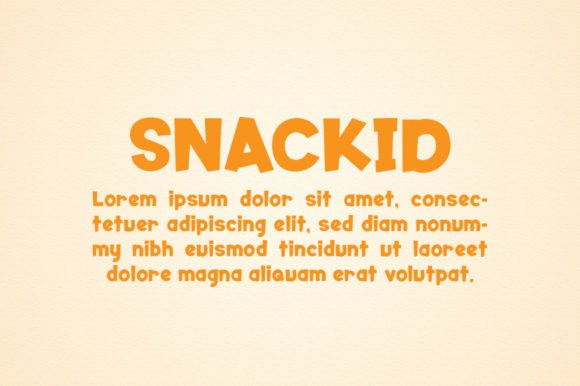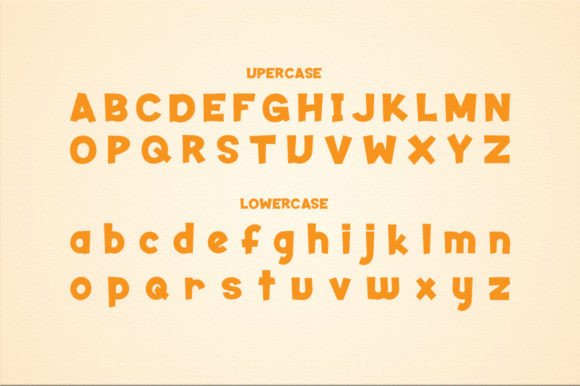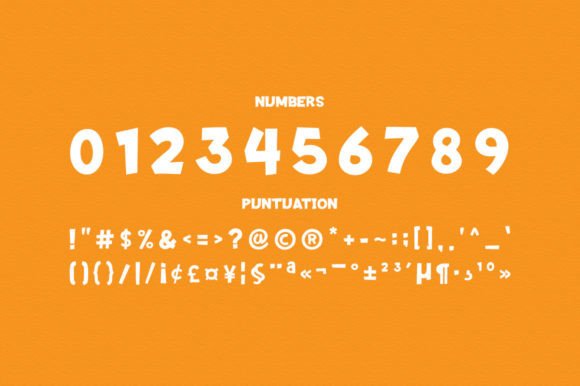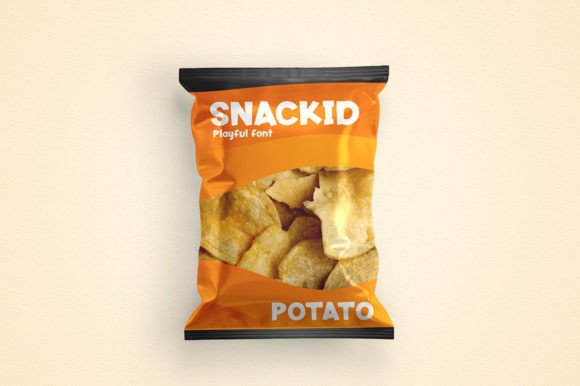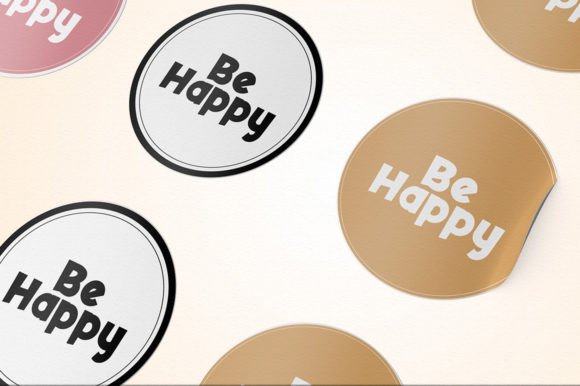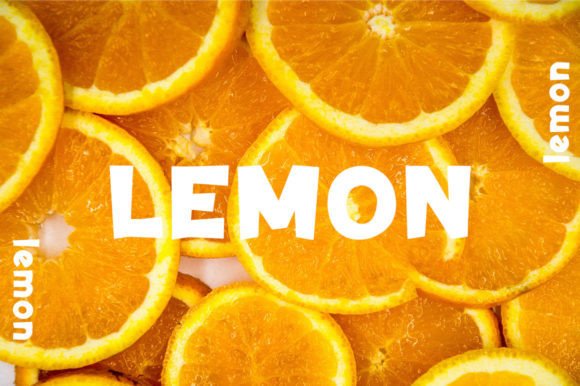
Introduction to Snackid Font
As a designer, there’s nothing quite like the thrill of bringing a creative project to life. You’re brainstorming ideas, experimenting with colors, and testing out typography – and that’s when it hits you: the perfect font to make your design truly pop. For many of us, that ‘aha’ moment comes when we stumble upon a unique display font that perfectly captures the essence of our vision. And for those who are about to embark on a food-related design journey, we’re excited to introduce you to the perfect companion: Snackid Font.
Snackid Font is more than just a design resource – it’s a game-changer. Its high-quality design makes it perfect for a wide range of creative projects, from food-related products to children’s activities and book titles. And the best part? You can download it for free, complete with a transparent background that allows for seamless integration into your design.
Key Features of Snackid Font
- Unique, bold, and playful font style perfect for snacking and food-related branding
- Comes with a comprehensive character set, including uppercase and lowercase letters, numbers, and punctuation marks
Honest Review: Snackid Font
I recently stumbled upon the Snackid Font, and I’m excited to share my honest thoughts on this design resource.
First, let’s talk about what works well. ✨ The Snackid Font is a high-quality, modern sans-serif font that’s perfect for any creative project. Its clean design and friendly feel make it an excellent choice for digital products, logos, and even print materials.
One of the standout features of the Snackid Font is its versatility. ✨ It comes in a range of weights, from light to bold, allowing you to customize the look of your project to suit your needs. Plus, it’s available for free download, making it an excellent option for designers on a budget.
- High-quality, modern sans-serif design
- Range of weights (light to bold)
However, there are a few limitations to consider. ⚠️ The Snackid Font is a relatively new design resource, and it may not be as extensive as some other fonts on the market. Additionally, it’s not suitable for use in situations where a more traditional, serif font is required.
Overall, I’m impressed with the Snackid Font and would recommend it to designers working on a creative project. Its modern design, versatility, and free download make it a valuable addition to any design resource library.
Introduction to Snackid Font
Snackid Font is a high-quality design resource perfect for creative projects. This free download offers a unique and eye-catching style that can elevate any design. With its transparent background, Snackid Font is easy to customize and integrate into various design tools.
Tips for Getting the Most Out of Snackid Font
To get the most out of Snackid Font, try experimenting with different font sizes, colors, and combinations. This font is perfect for creating eye-catching headlines, titles, and logos.